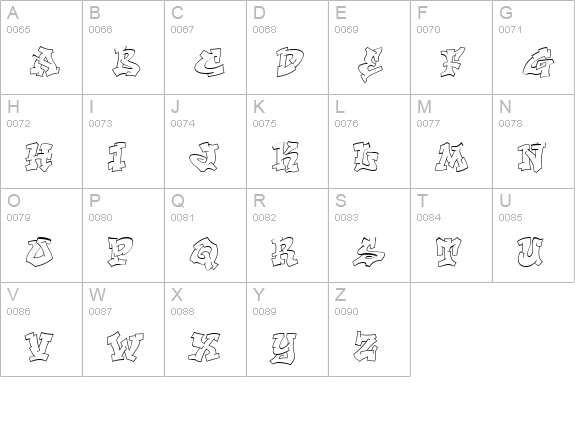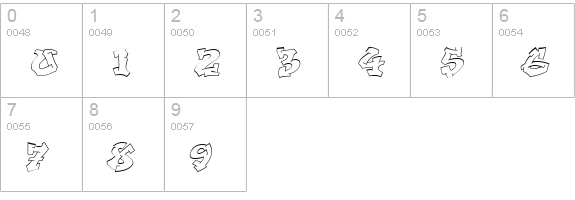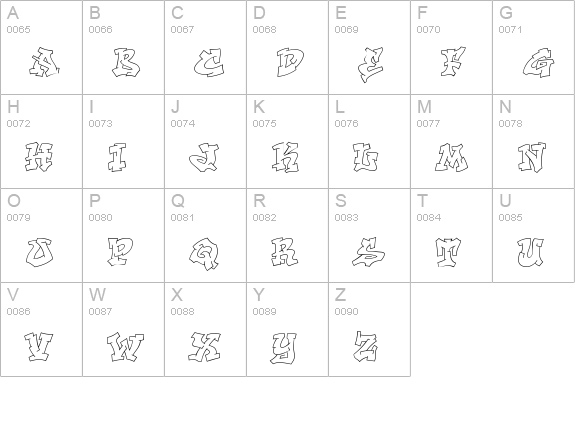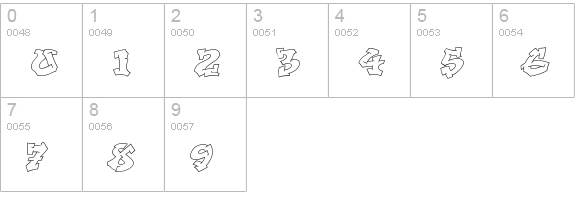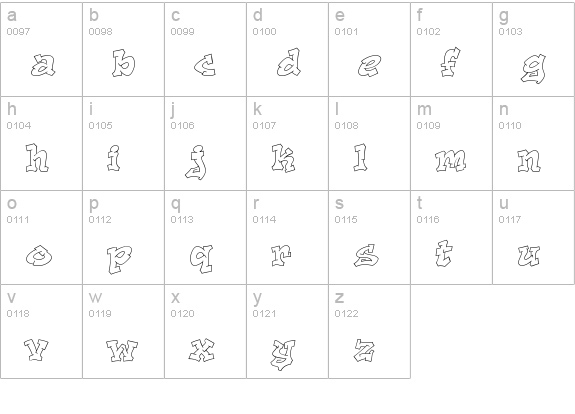
Aerosol Font Details
Aerosol font is a modern and stylish typeface that exudes a sense of urban flair and creativity. With its bold and dynamic design, this font is perfect for making a statement in any project. The sleek lines and edgy aesthetic of Aerosol font make it ideal for branding, logos, posters, and more. What's even better is that Aerosol font is available for free download at FontsMarket.com. This means you can easily access this eye-catching font and incorporate it into your designs without any cost. Don't miss out on this fantastic opportunity to elevate your projects with the striking Aerosol font. Download it today and unleash your creativity!